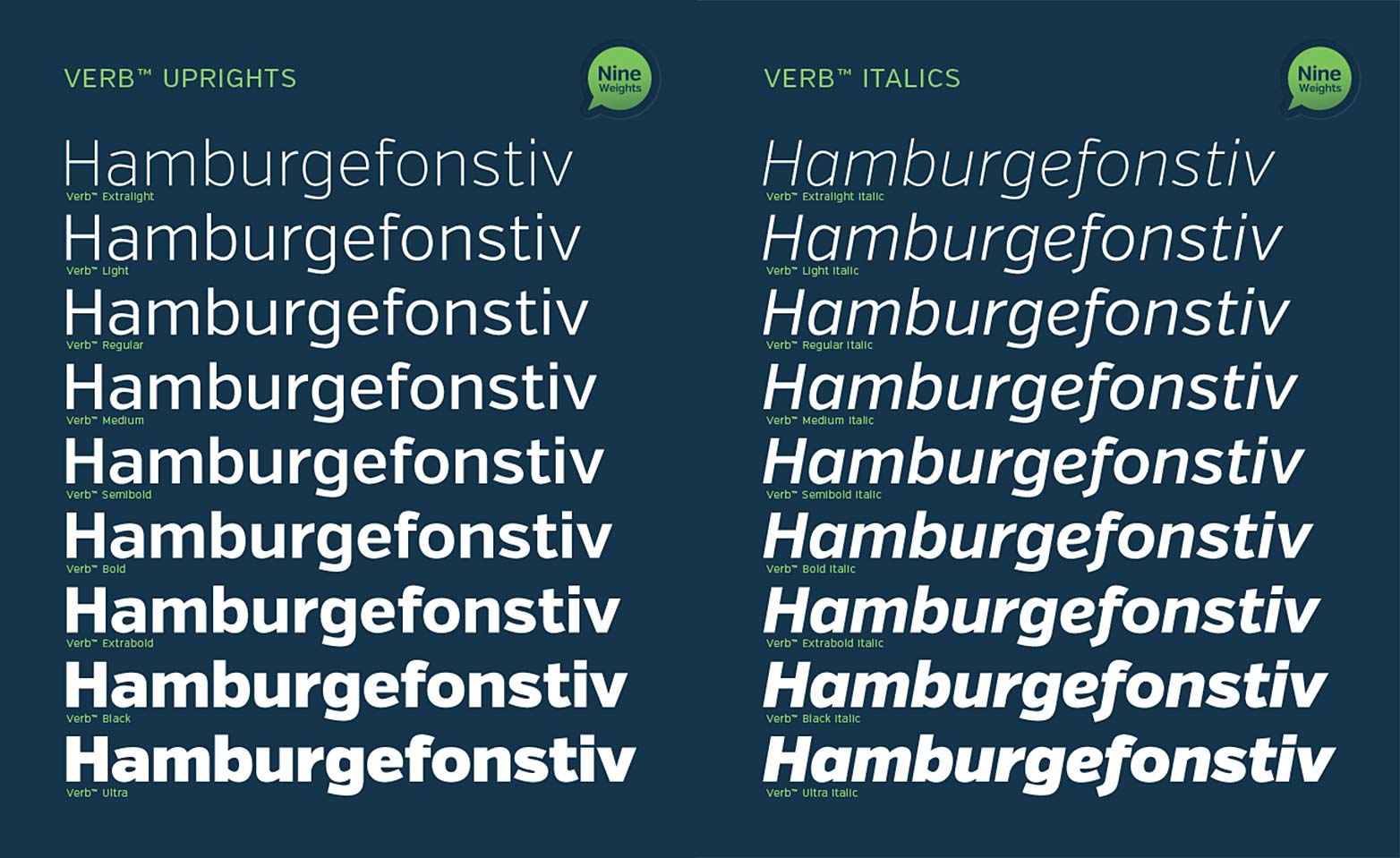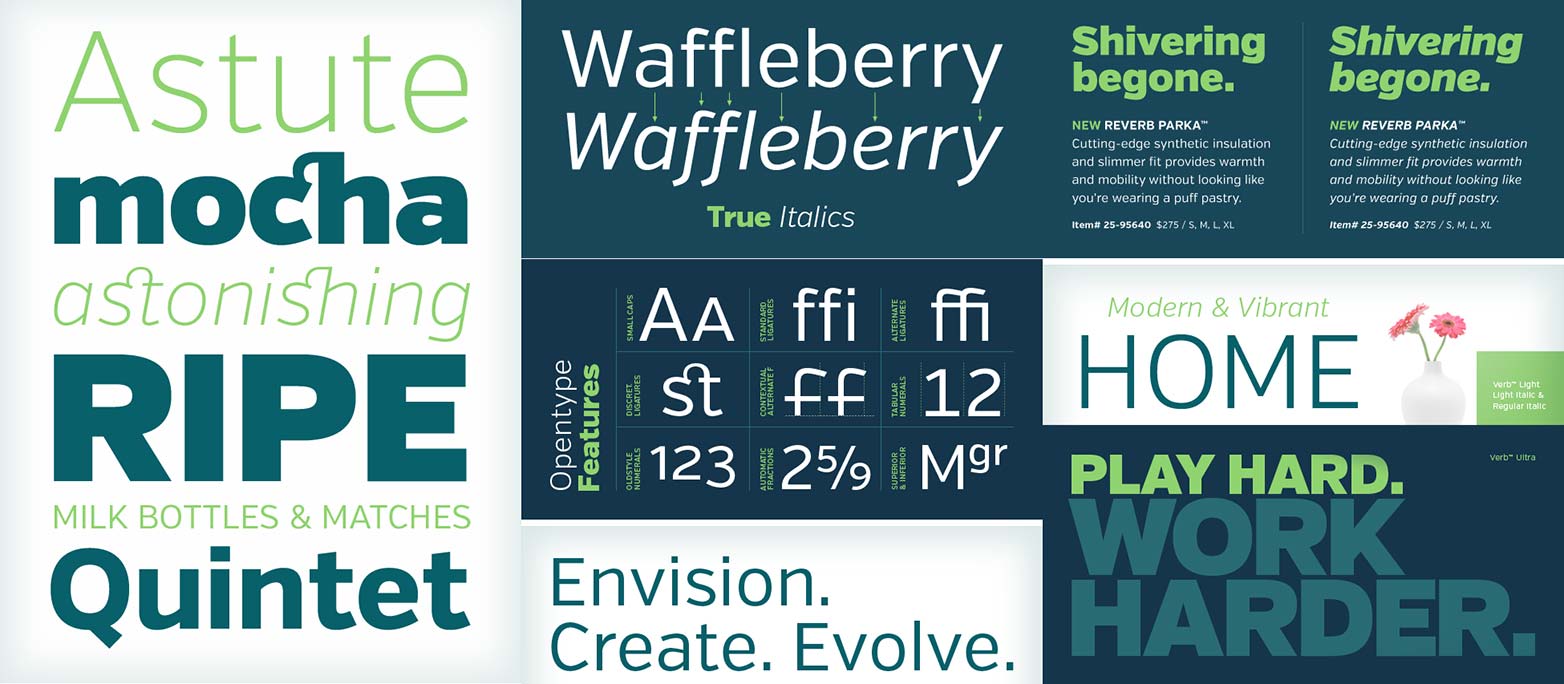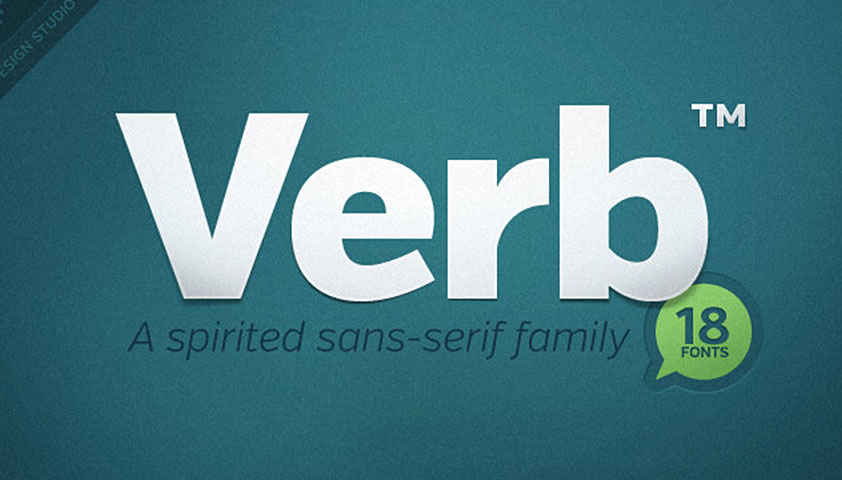
If there’s one thing every designer needs in their toolkit, it’s a workhorse font. A workhorse font is the typeface you turn to again and again; it’s your first stop; your default option. Your workhorse font is deeply entrenched in your personal style, it defines your portfolio even more than your client list.
Not too long ago designers were divided into two camps: those that tended to work online, and used Helvetica as their workhorse; and those that tended to work in print, and used FF Meta as their workhorse. The truth was that Helvetica (or Arial for the less discerning) was the best web-safe font available. FF Meta, was a beautifully designed sans-serif that graced many a design, but it was expensive to license and technologically difficult to use online.
Fortunately, those days are gone. With the advent of @font-face designers have been freed in their choice of fonts and a whole new generation of typefaces are realistic options.
Amongst them, is a font family from Yellow Design Studio that may just be your new workhorse. Verb is a lovingly crafted font, suitable for both display and body text.
There are 9 weights available — Extralight, Light, Regular, Medium, Semibold, Bold, Extrabold, Black and Ultra — giving you total flexibility: Additionally each weight has a true italic counterpart.
Verb is a rare typeface in that it is extremely readable, whilst still holding onto a great deal of character. The contemporary feel makes the font suitable for all kinds of design, business and lifestyle applications; and the angular curves, most notable in the open counters and descender on the lowercase ‘g’, give the font a fun, energetic feel. This go-to font is something you’ll want to use again and again over the next decade or more.